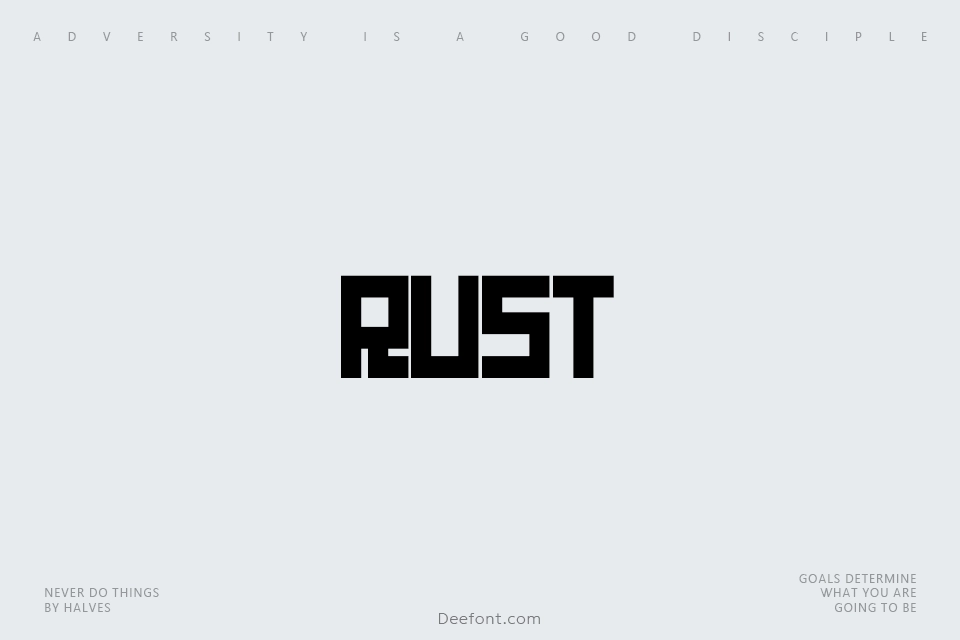
Rust Font
I noticed that the game Rust does not have a font dedicated for free third party use. As a result I’ve taken some time out of my day to craft one. Enjoy!
Designed by:Ben Kohan